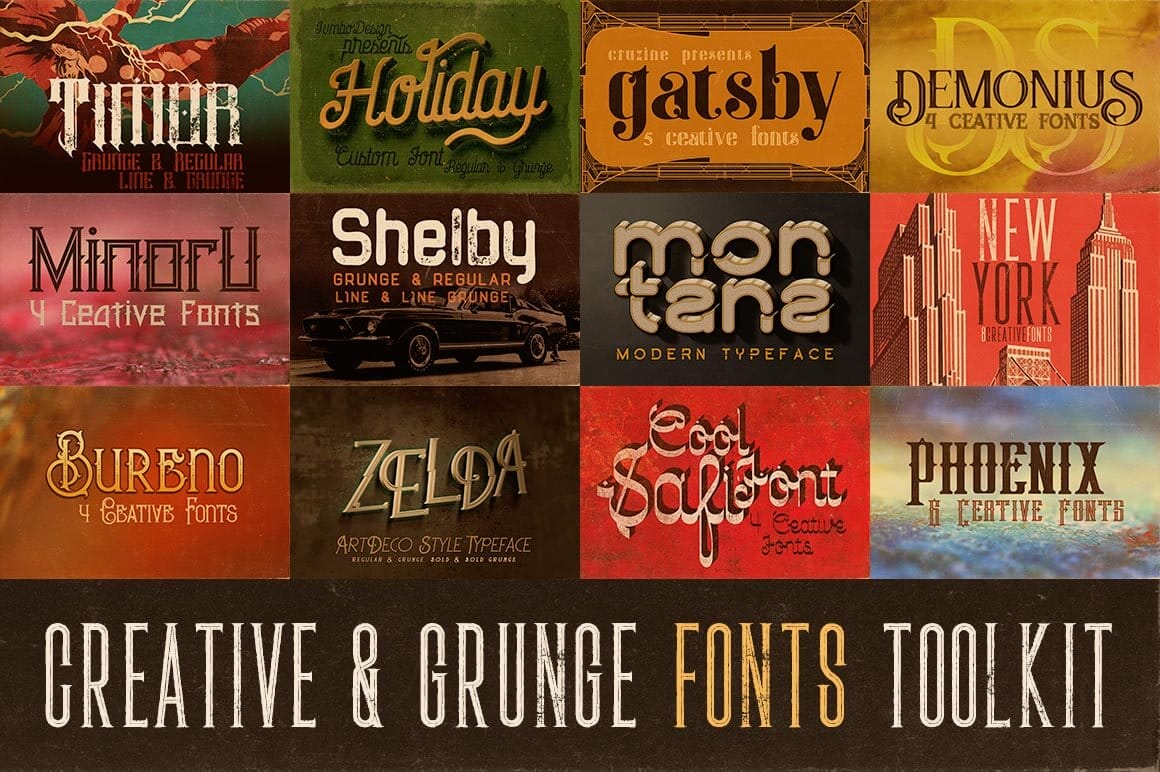
Think your Font Library’s old? Well it’s time to give it a modern-day facelift, while still reaching to the past. This fantastic font family bundle from Cruzine features 12 creative and grunge vintage font families in 1 mega collection of a deal. That’s a total of 57 unique custom fonts done up in a retro, vintage or grunge style. They’re perfect for everything from T-shirts to posters to Web templates.
- Add a real creative grunge feel to your artwork with this fabulous collection of fonts from Cruzine.
- Beef up your typeface toolbox with 12 unique font families guaranteed to rock your latest project.
- Besides a real nice variety of styles, this bundle features multiple fonts in each family, for a total of 57 custom fonts in 1 super discounted deal.
- These grungetastic fonts are the perfect choice for a wide array of products including: T-shirts, posters, stickers, logos, Web templates and more.
Take a closer look at the 12 font families included in this collection:
Gatsby – ArtDeco Font
This professional ArtDeco vintage style font features 5 unique fonts: regular, grunge, inline grunge and outline.
Bureno – Decorative Font
With 4 fonts in the family (regular, grunge, bold, and bold grunge), this vintage and ornamental style display font is really great for all your retro and vintage headers!
New York Font
With visions of tall skyscrapers reaching up to the sun, this vintage style display font offers up a real retro feel in 8 different font styles ranging from regular to grunge to shadow line grunge.
Demonius – 4 Vintage Fonts
Get 4 fonts for the price of 1 with this uniquely vintage style font that’s just perfect for any new header designs.
Holiday – Creative Script Font
Build your own creative style artwork with a modern cool font that also has a real vintage script style to it.
Minoru Font
Big, bold and sharp best describes this creative font that’s perfect for any modern or vintage-style projects you’re currently working on.
Montana Font
A perfect mix of modern and futuristic feels, this typeface offers 6 unique font files from regular to bold line grunge.
Phoenix Typeface
Add a totally fantasy-type feel to your work with this unique vintage font featuring 6 different styles from regular to bold grunge.
Shelby Typeface
Modern meets vintage in this straightforward custom font with 4 unique styles.
Safi – Unique Calligraphy
A truly creative calligraphy script font with style, this typeface sports 4 unique fonts: regular, grunge, bold, and bold grunge.
Zelda – ArtDeco Font
A great font for both modern and retro projects, this vintage style font family includes 4 typefaces: regular, grunge, bold and bold grunge.
Timor – Vintage Style Font
Feel the power with this strong vintage fantasy font family that includes 4 different styles: regular, grunge, inline, and inline grunge.